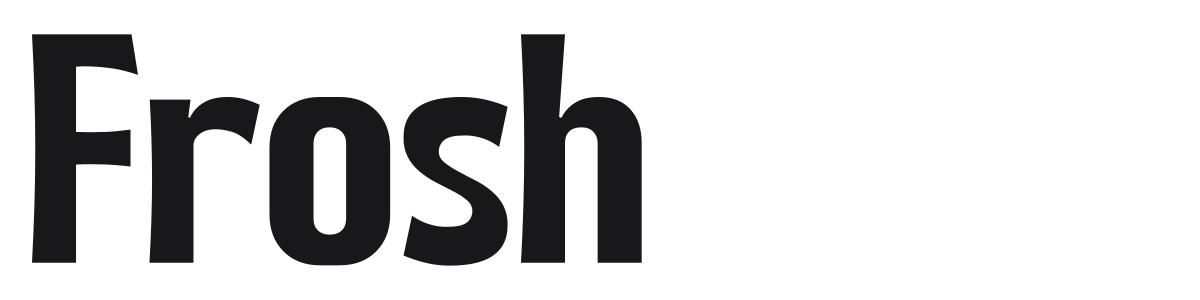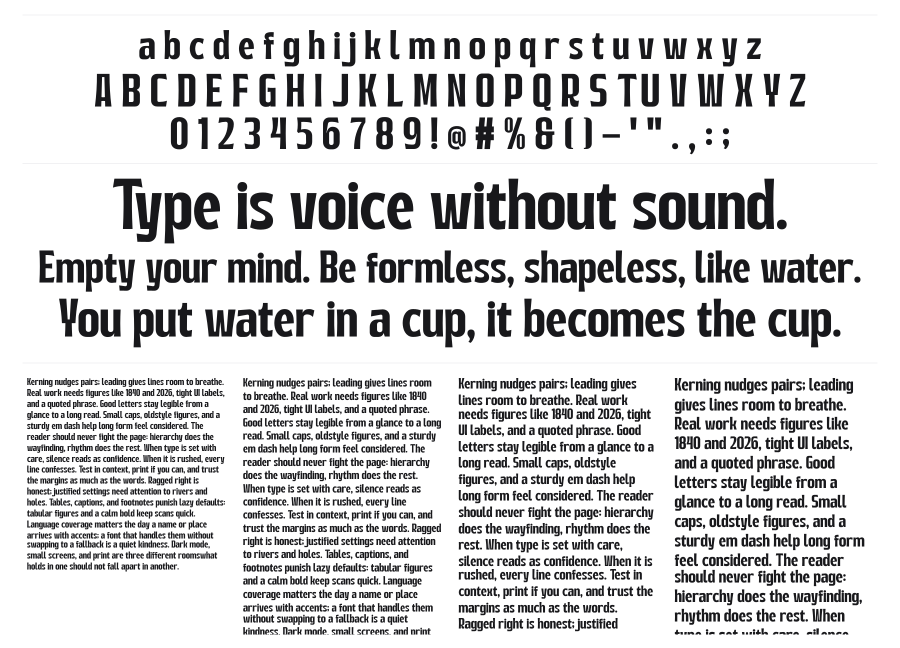
Frosh
Frosh is a heavy condensed grotesque sans with an assertive, space-efficient presence. The tight proportions and flat terminals give it a contemporary industrial edge, while subtle softening on rounded characters keeps it from feeling rigid. Built for headlines, posters, and any context where you need maximum impact in minimum width.